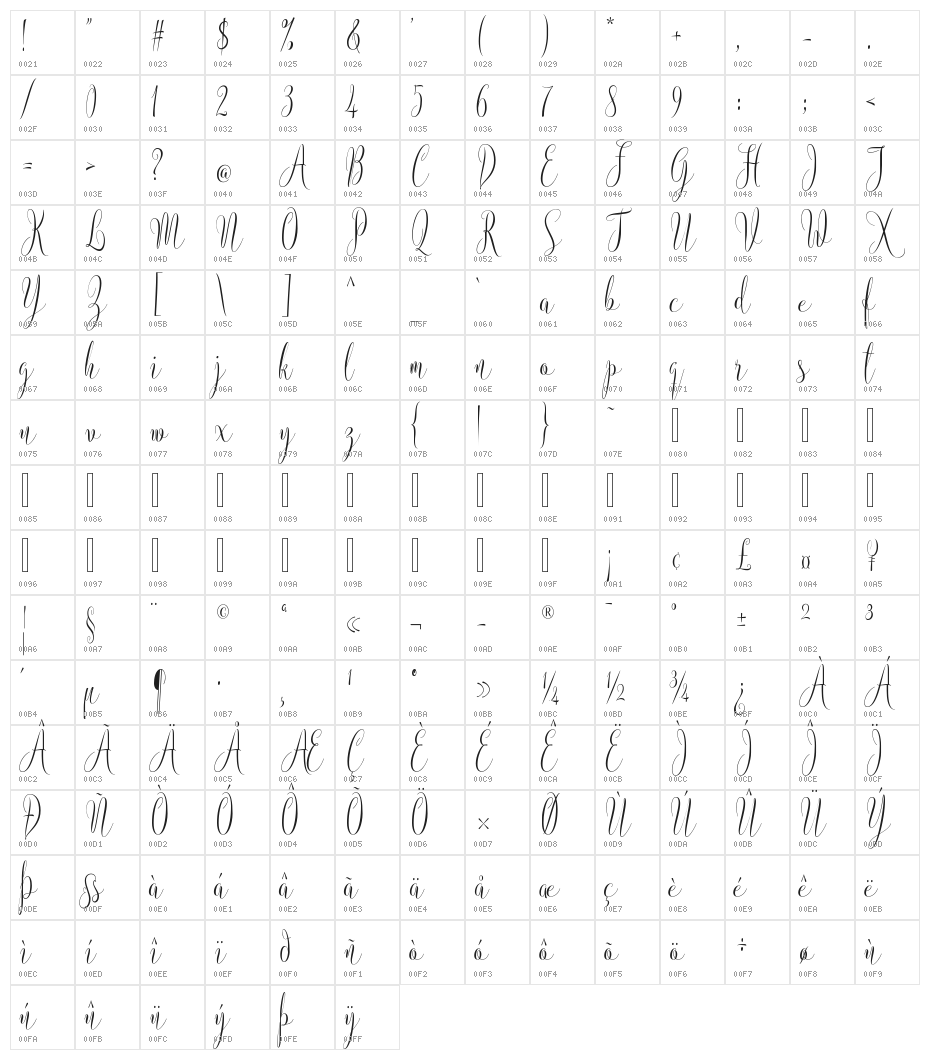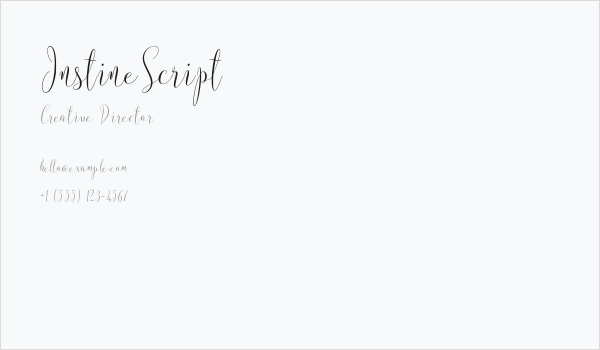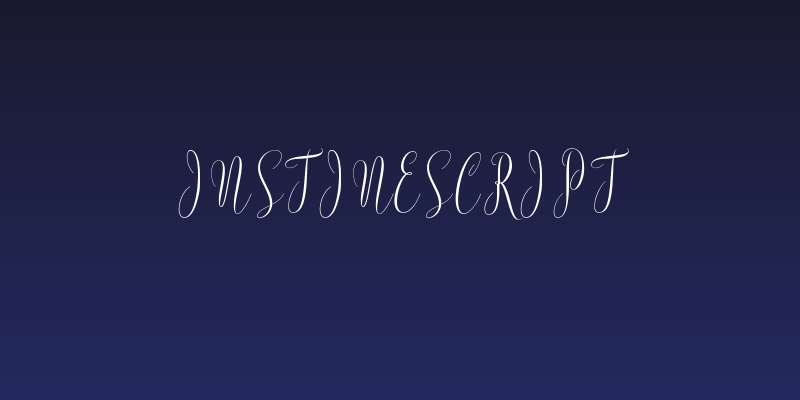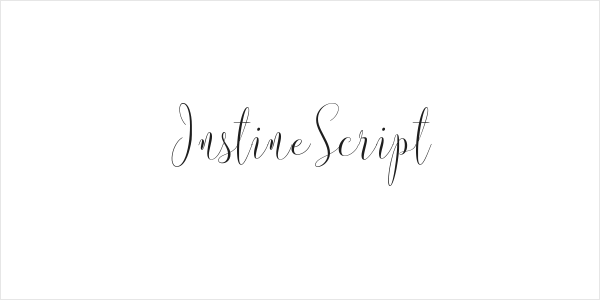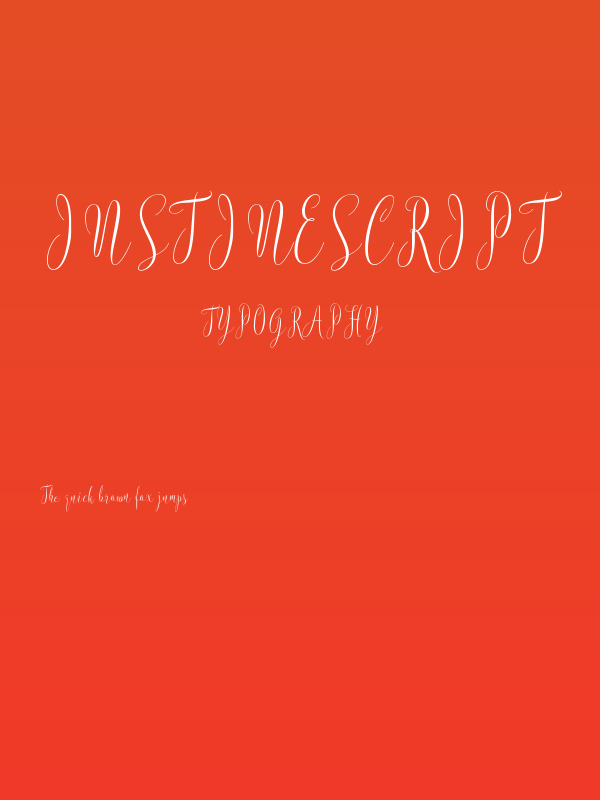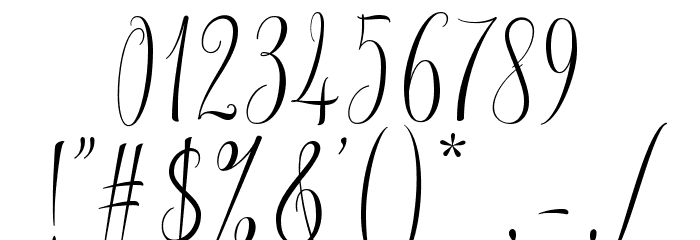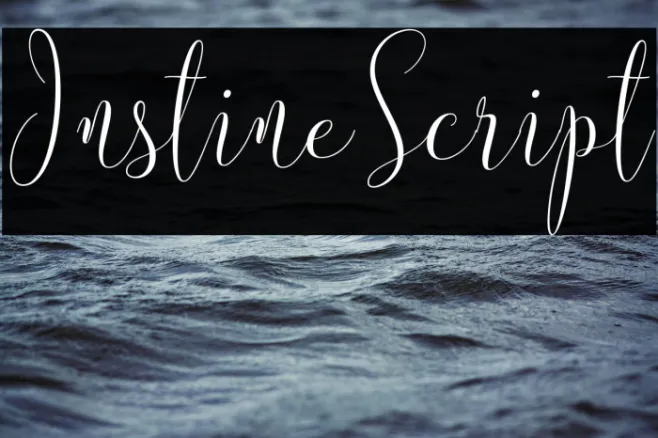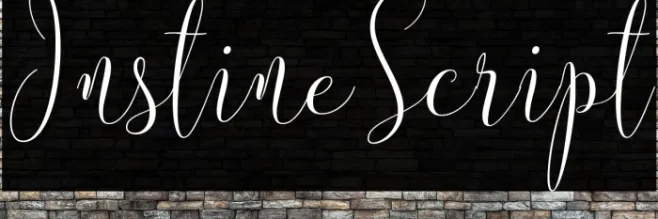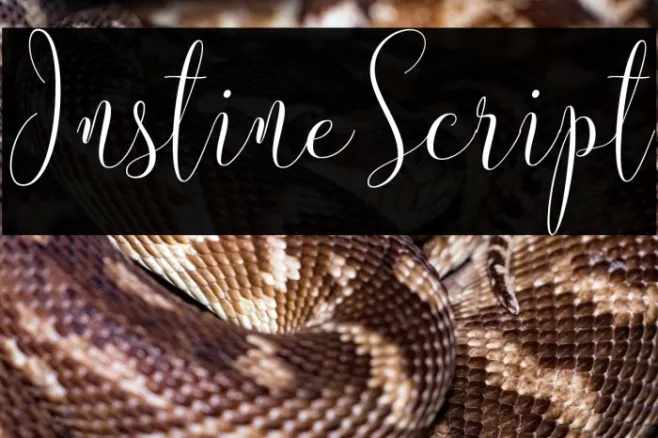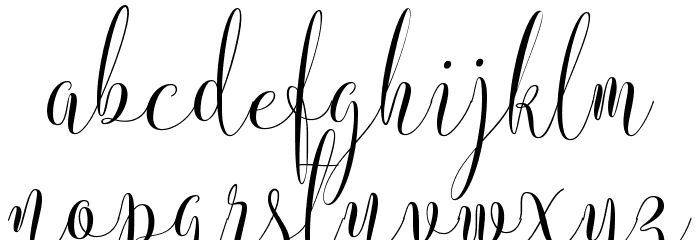
InstineScript Font
InstineScript Description
This elegant script font features flowing, interconnected letters that exude a sense of sophistication and grace. The uppercase characters are tall and slender, with sweeping curves and delicate loops that add a touch of refinement. The lowercase letters maintain a consistent flow, with smooth transitions and gentle curves that enhance readability while preserving the font's artistic flair. Numbers and special characters are designed with the same attention to detail, ensuring a cohesive look across all text elements. The overall design is reminiscent of classic calligraphy, making it suitable for projects that require a personal, handwritten touch.
| Proposed Projects | Ideal for wedding invitations, elegant branding, personal stationery, and artistic projects. |